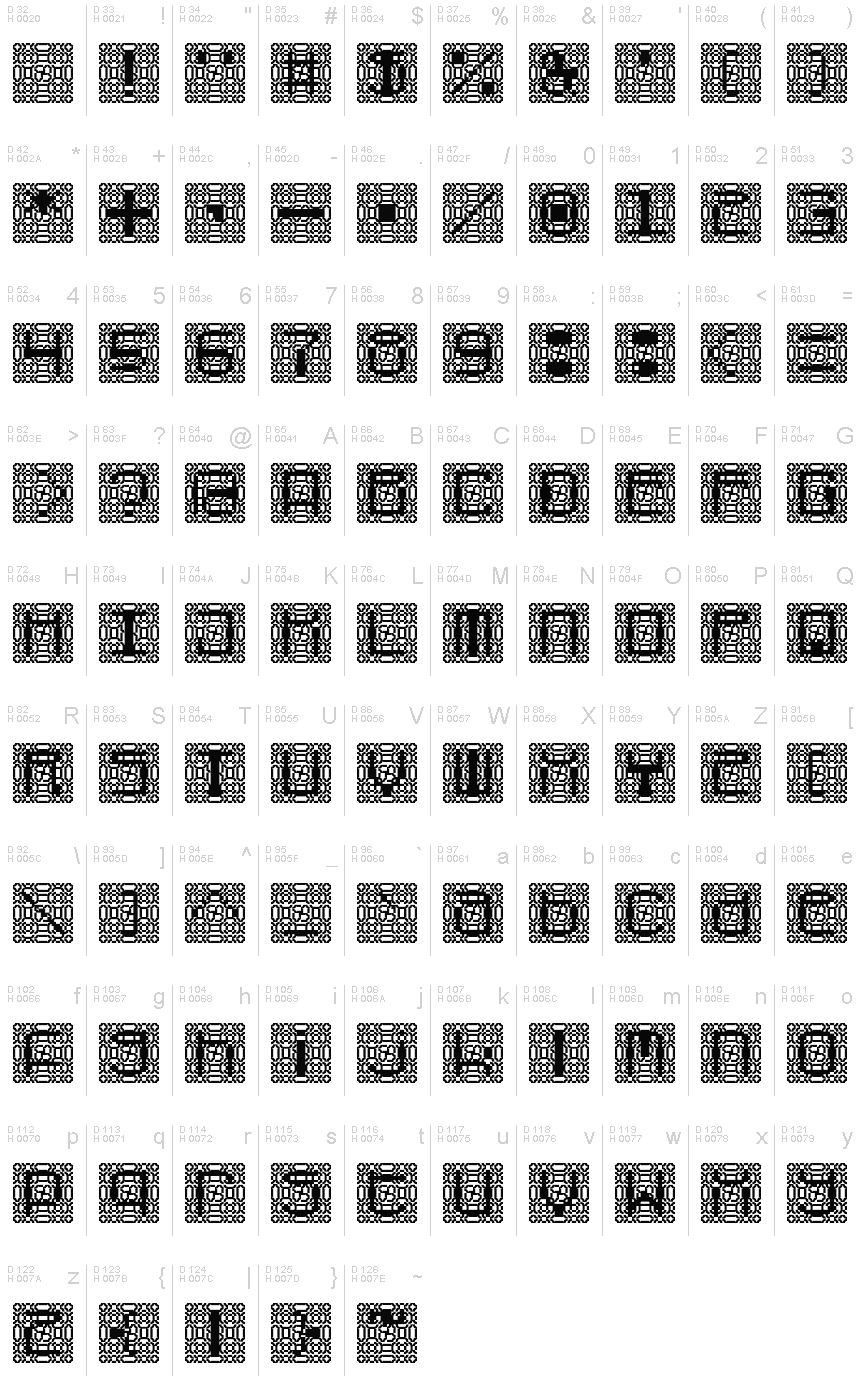
Cybernaut Delta Regular
“Cybernaut Delta” was built with FontStruct
Designer description: A more "organic" or "biomechanical" version of Cybernaut. Looks best at sizes that are powers of 2.